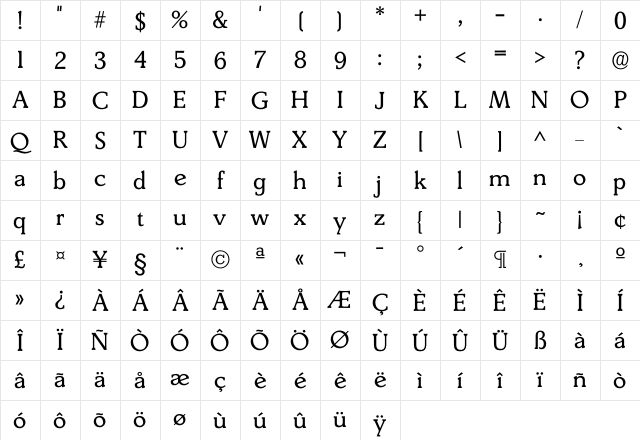
Derrin Regular
Derrin Family
Derrin Regular
Design Context for Derrin
Derrin is a composed and adaptable typeface that performs quietly and consistently across a wide range of design contexts.